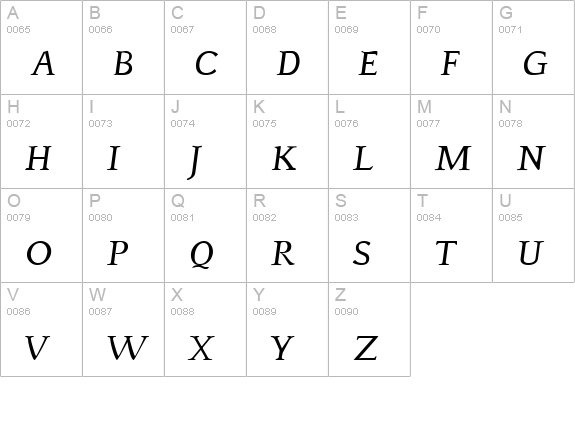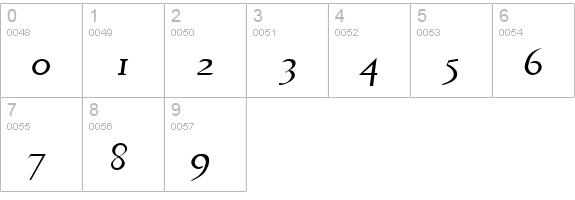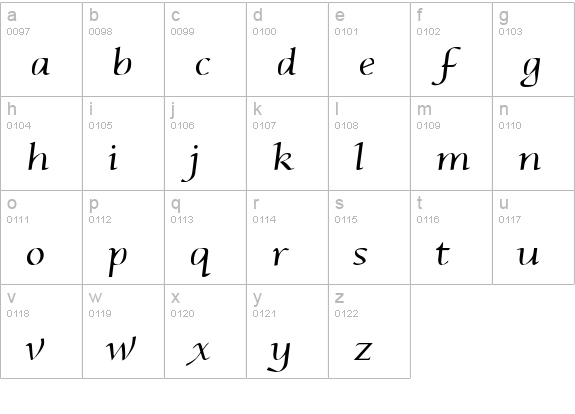
Phaedrus Italic Font Details
Phaedrus Italic is a distinctive, italic variant in the Phaedrus typeface family \xE2\x80\x94 well suited to design and typography projects.
Introducing Phaedrus Italic, a captivating font that effortlessly combines elegance and modernity. With its sleek and slanted letterforms, Phaedrus Italic adds a touch of sophistication to any design project. Whether you're creating a logo, branding materials, or editorial layouts, this font is sure to make a lasting impression. Phaedrus Italic boasts a unique balance of thin and thick strokes, resulting in a graceful and harmonious appearance. Its flowing curves and refined details give each character a distinctive flair, making it a perfect choice for those seeking a font that exudes both professionalism and creativity. One of the most remarkable features of Phaedrus Italic is that it is free. Yes, you read that right! This exceptional font can be freely downloaded at FontsMarket.com, allowing you to elevate your designs without breaking the bank. With accessibility in mind, Phaedrus Italic gives you the freedom to bring your ideas to life, unleashing your creativity without limitations. The versatility of Phaedrus Italic extends beyond its captivating aesthetic. It is designed with readability in mind, ensuring that your message is conveyed effortlessly to your audience. From headlines to body text, this font maintains its clarity, making it suitable for a wide range of applications. Whether you're a seasoned designer or just starting on your creative journey, Phaedrus Italic is a must-have addition to your font library. Its timeless appeal and free availability make it an invaluable asset for any designer looking to make a statement. Download Phaedrus Italic today from FontsMarket.com and experience the true power of this remarkable font.